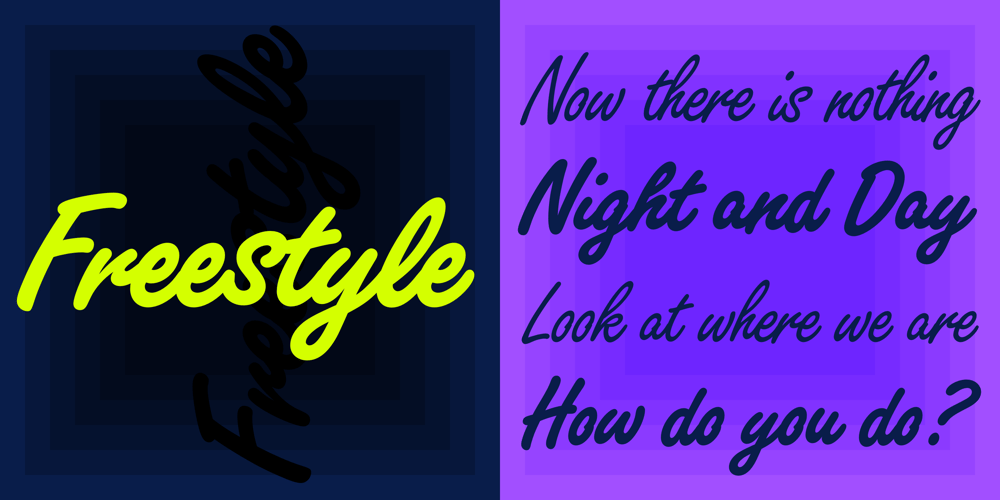
Freestyle Script
Freestyle Script font
Freestyle Script Font Family was designed by Martin Wait and published by ITC. Freestyle Script contains 2 styles and family package options. Freestyle Script is the work of designer Martin Wait. It is an informal display typeface which perfectly renders the spontaneous qualities of hand-rendered brush lettering. Its capitals can be used alone in word settings and are complemented by an extensive lower case alphabet which includes ligatures of every imaginable variety.